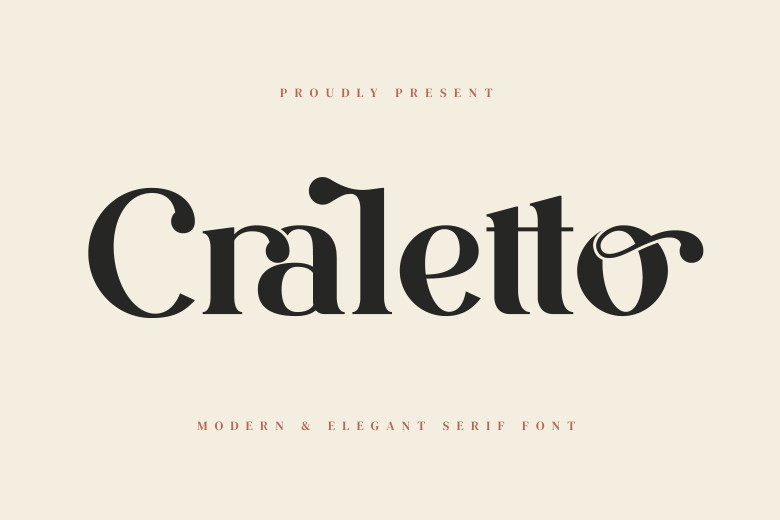
Craletto is an elegant and contemporary serif typeface. This typeface can be used to adorn many different ideas for crafting including cards, labels, branding projects and more. Give Craletto a try today to see the incredible results it will produce for your masterpieces!
Craletto Serif Font